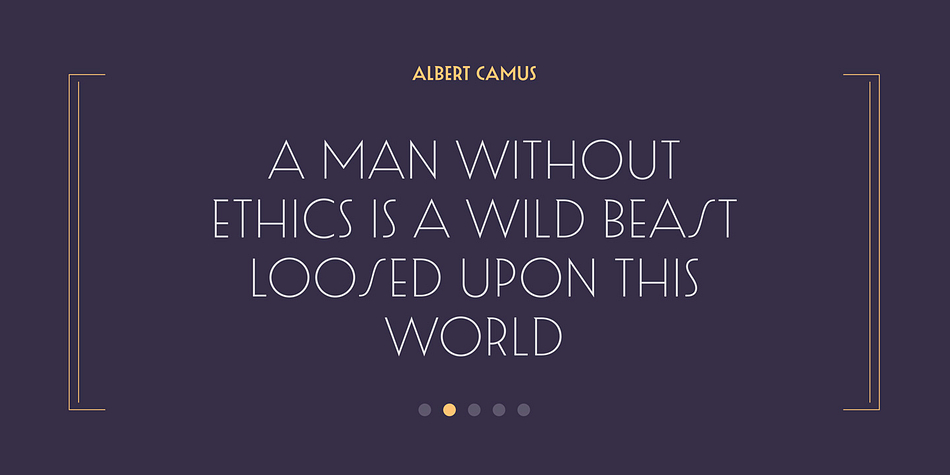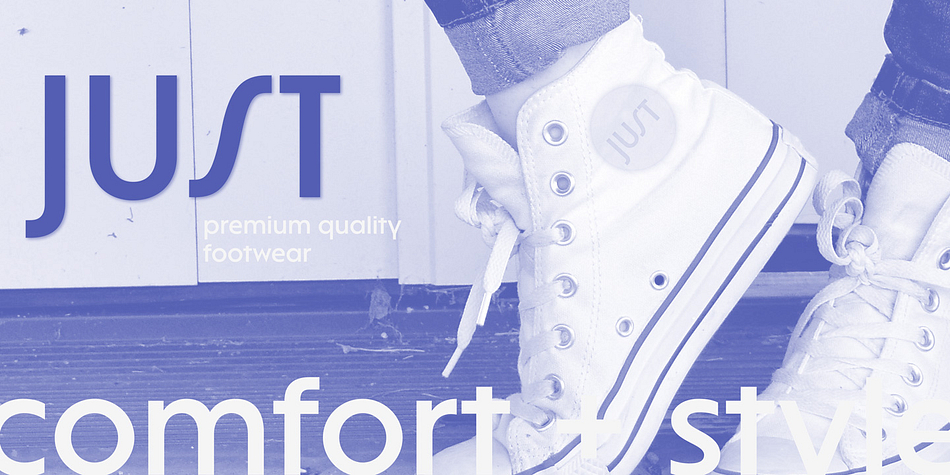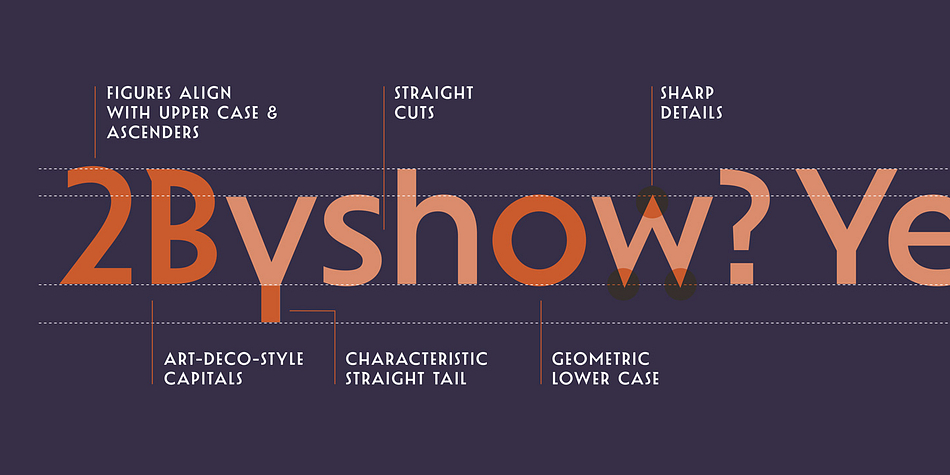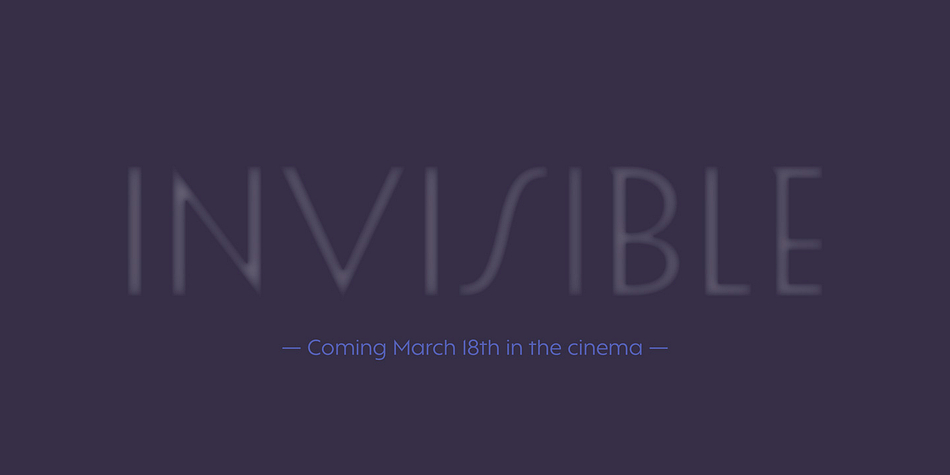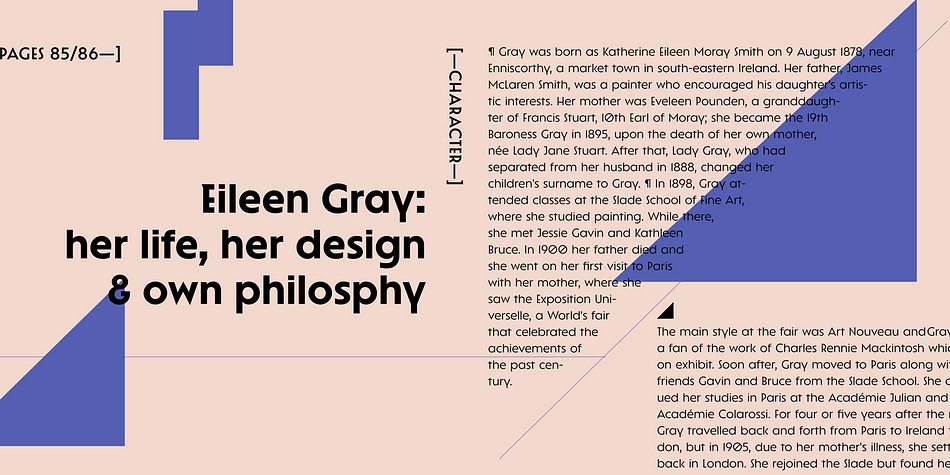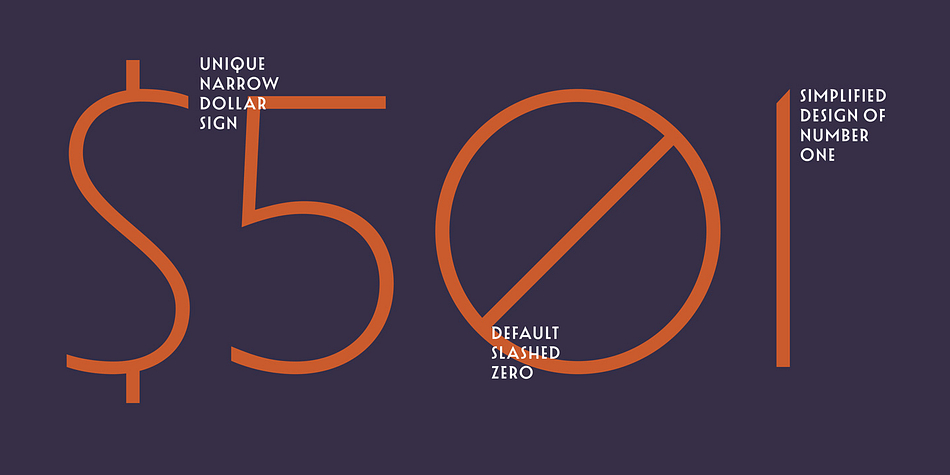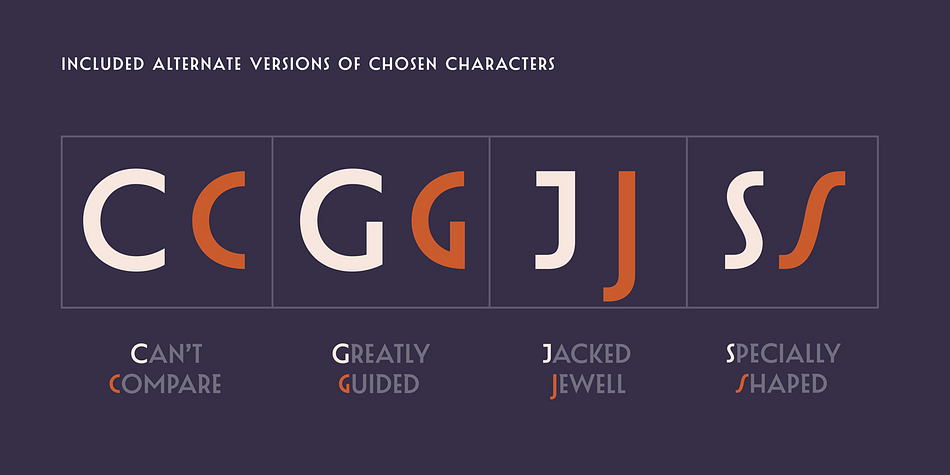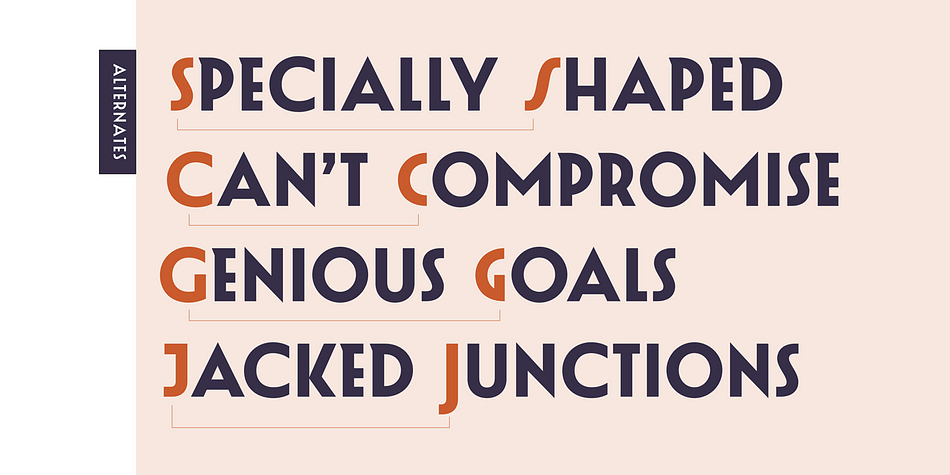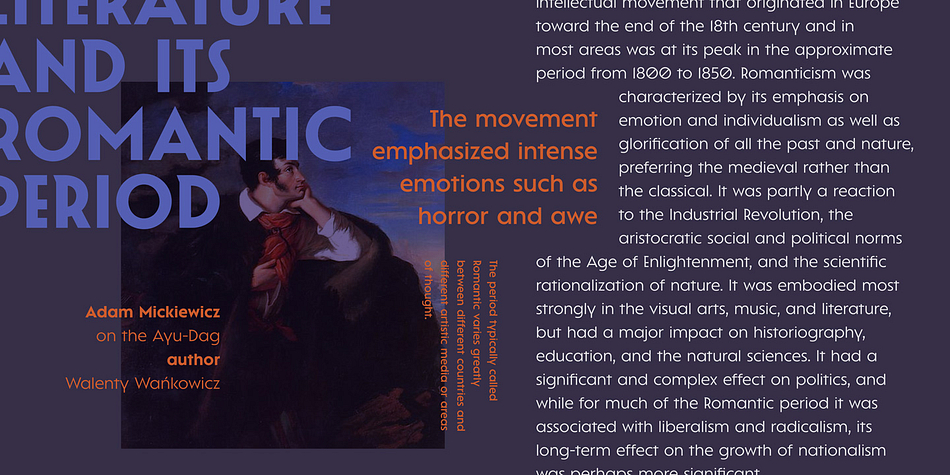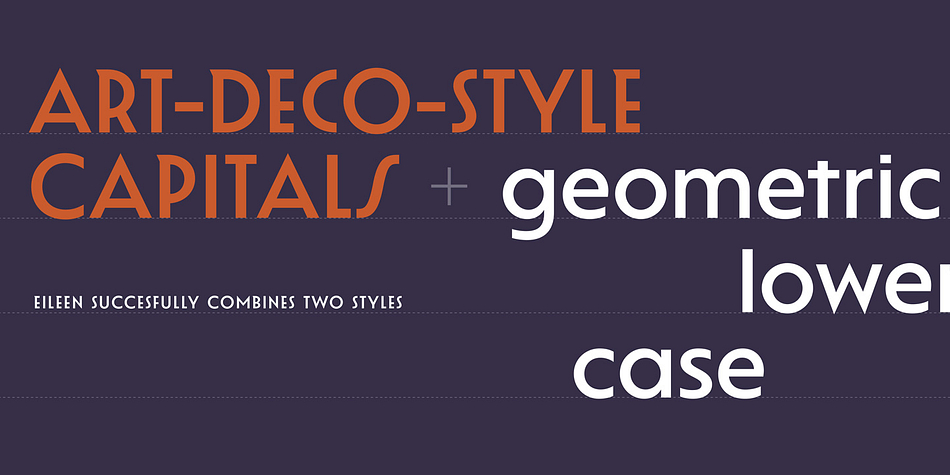
Designed by Julie Soudanne, Eileen is a display sans and art deco font family. This typeface has five styles and was published by Indian Type Foundry.
Eileen is an art-deco-style typeface with five weights. It mixes two popular sans serif styles from the 1920s: capital letters are art deco, and the lowercase is geometric.
Each font contains alternate forms of “ C,” “G,” “J” and “S.” The lowercase letters include a number of constructed features: “a” and “g” are both single-storey, while the bottoms of “t” and “y” are straightened out.
Some of the non-alphabetic characters are unique, such as the narrow dollar and rupee currency symbols, as well as the brave ampersand.
Eileen is named after the Irish furniture designer Eileen Gray (1878–1976). She was a pioneering Modernist, and this typeface is a fitting typographic tribute to her work.
Foundry | Indian Type Foundry |
Designer | Julie Soudanne |